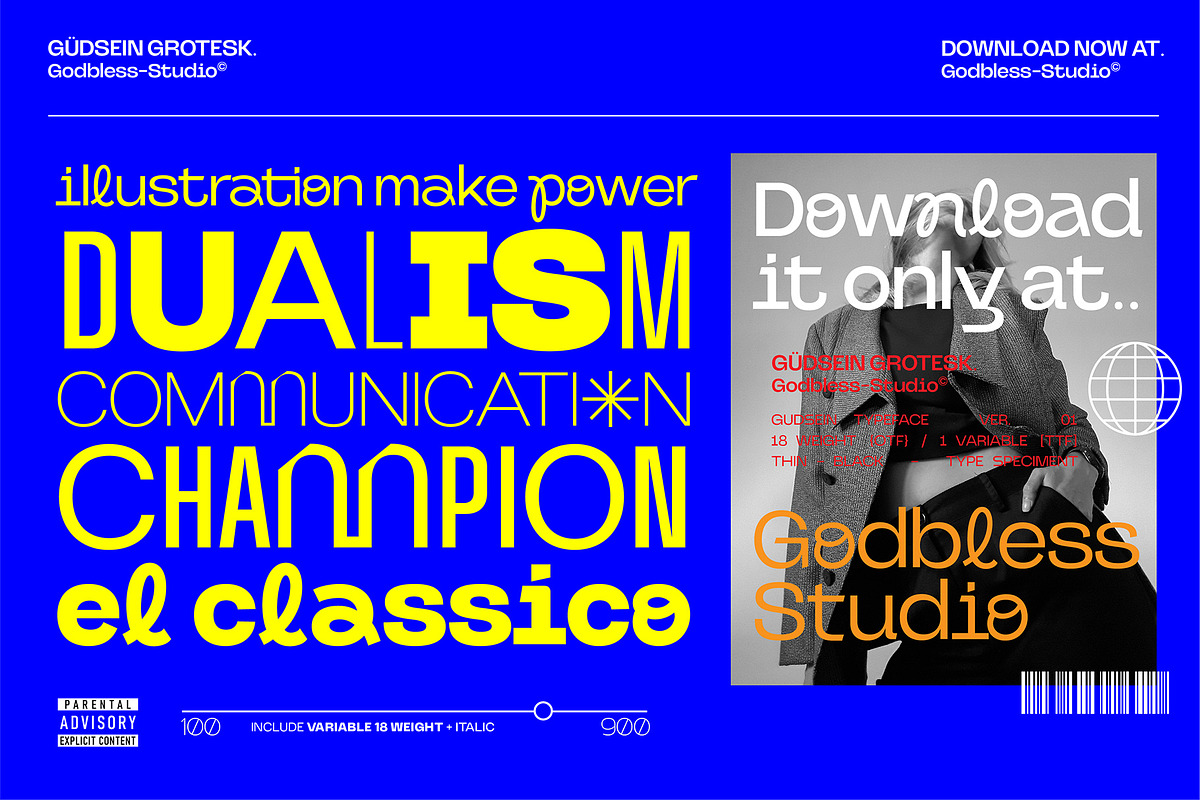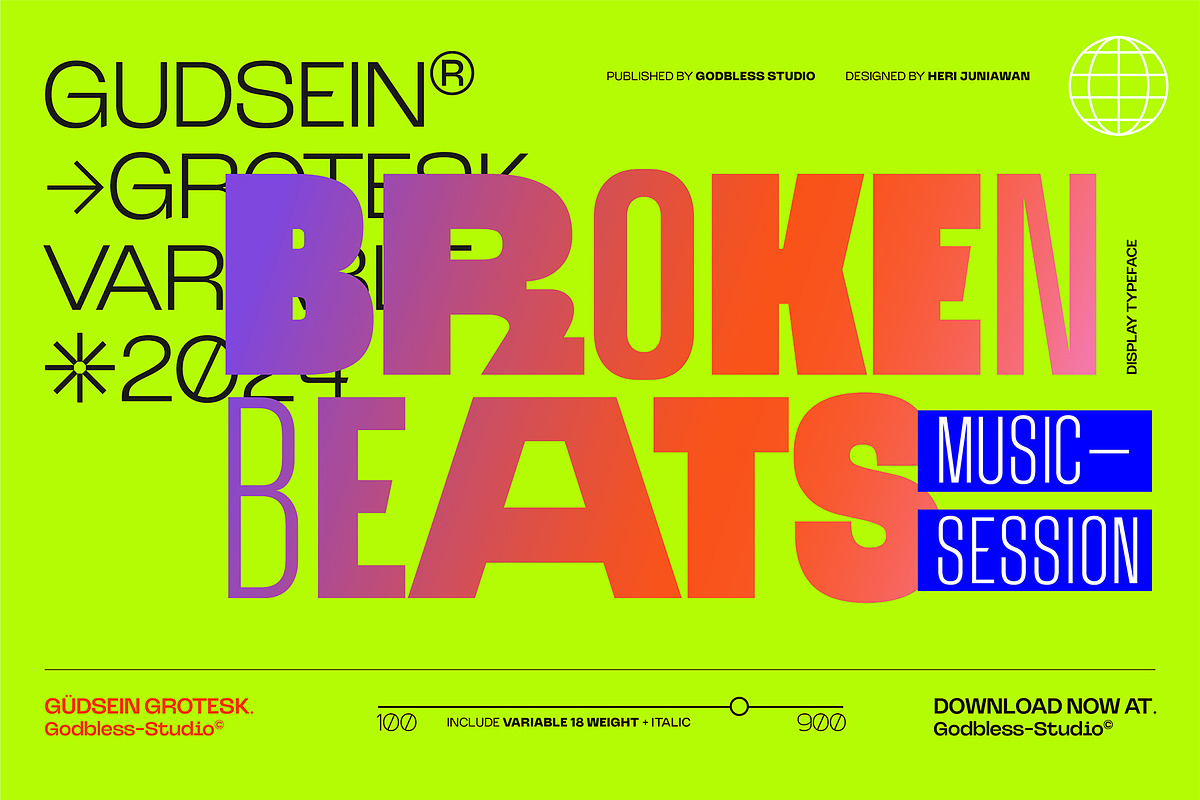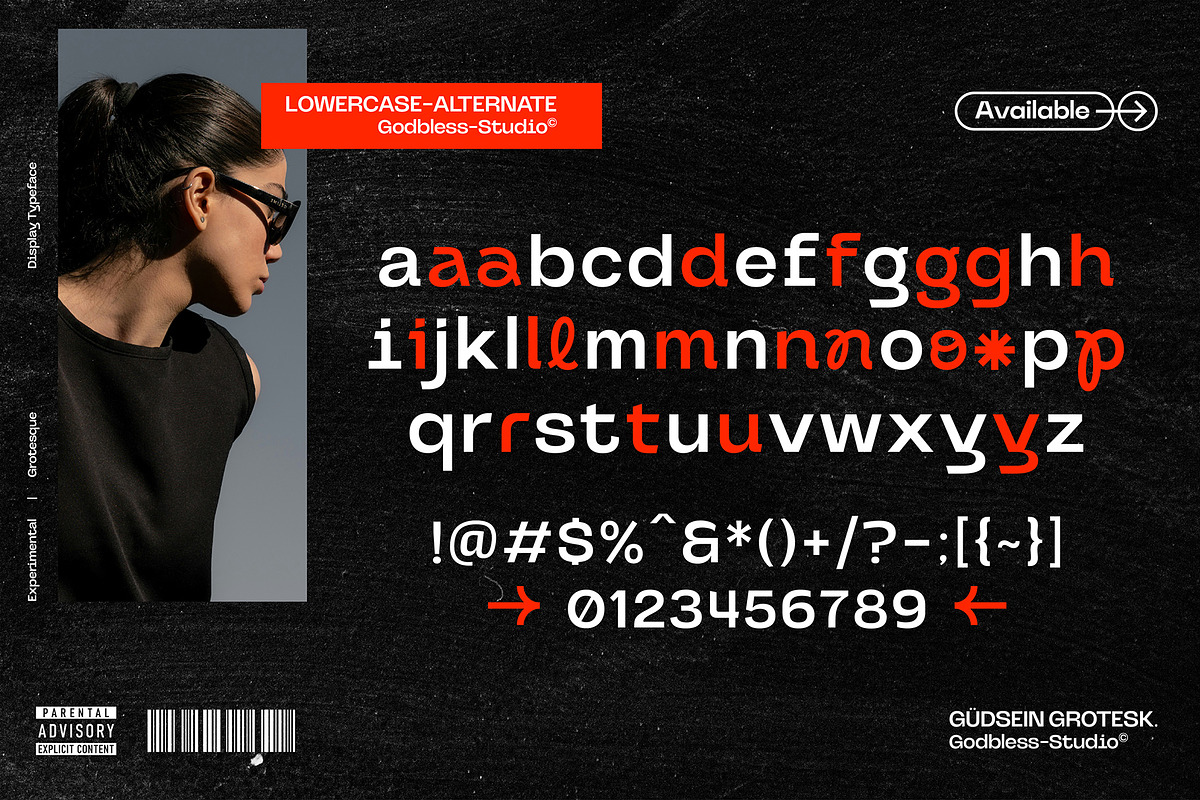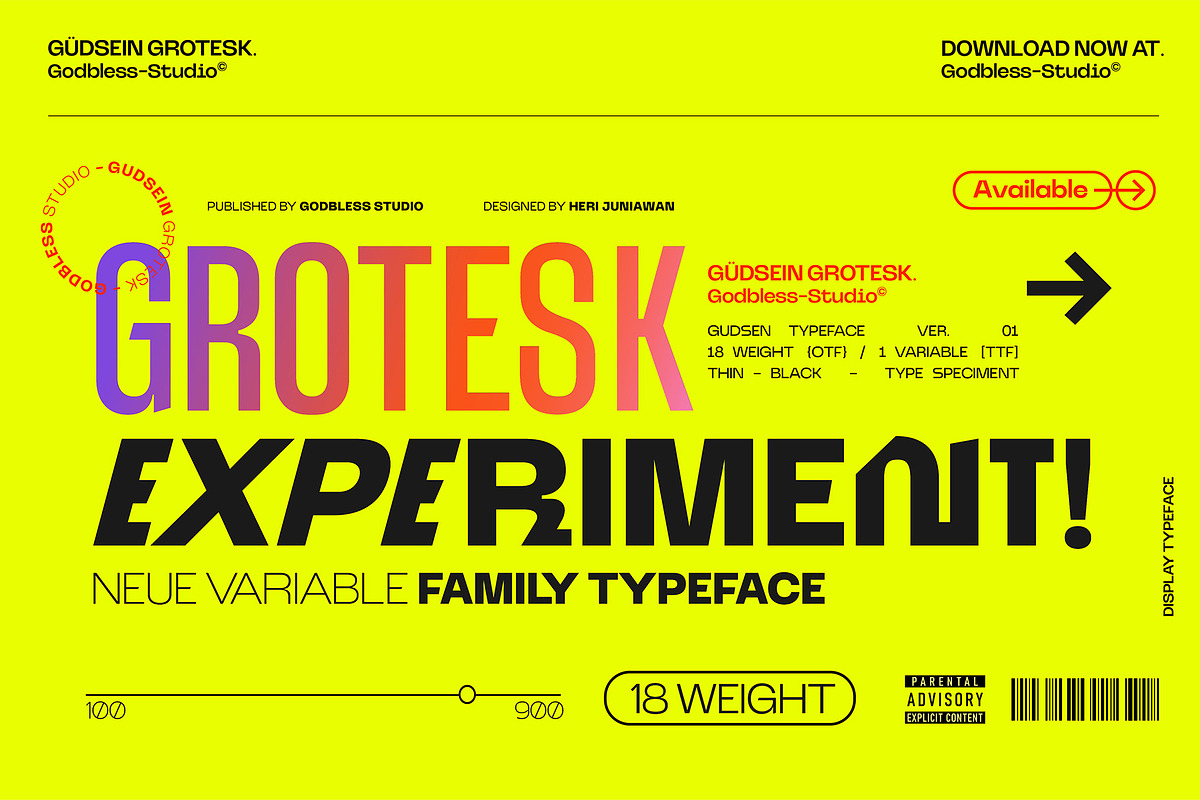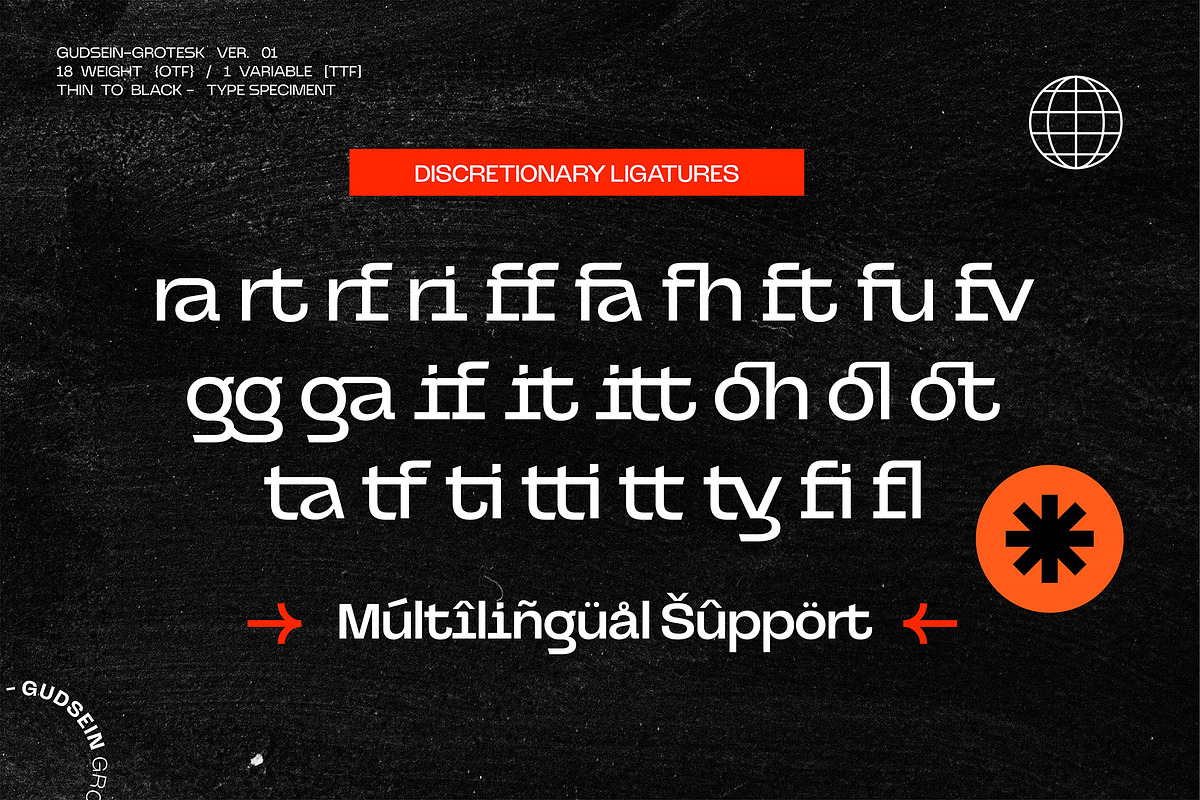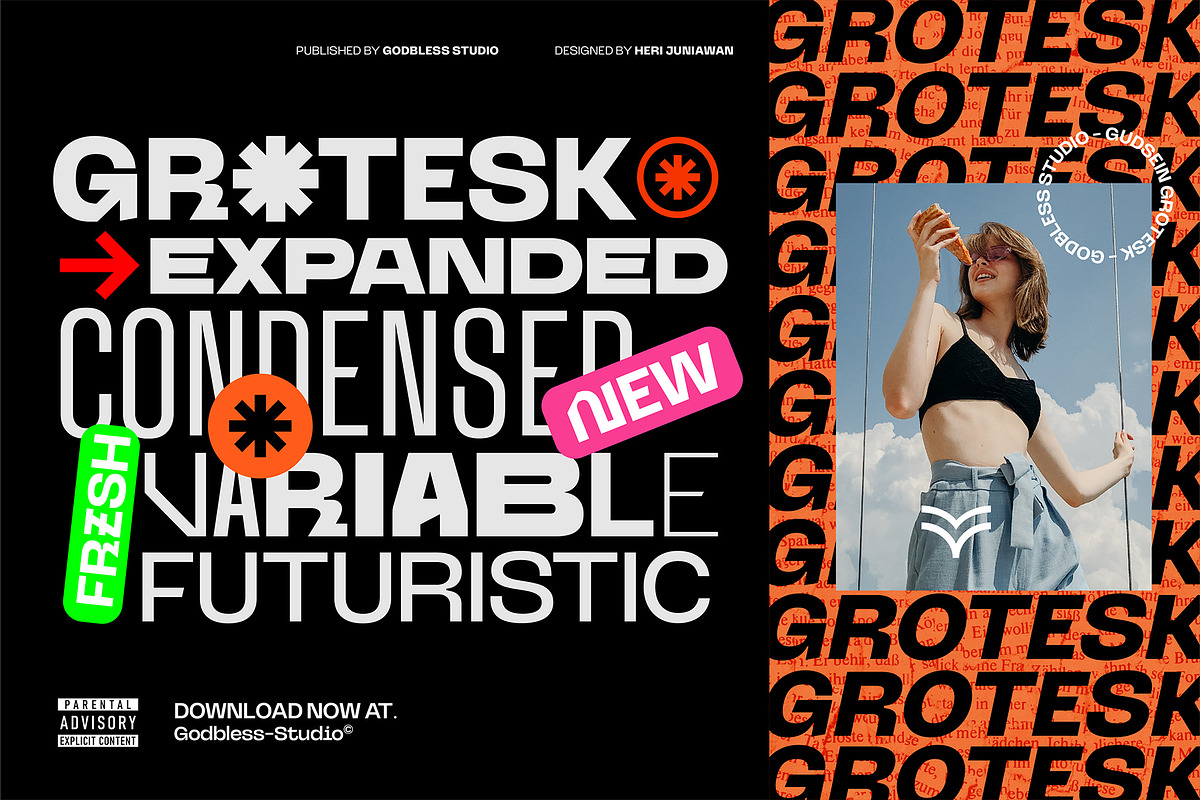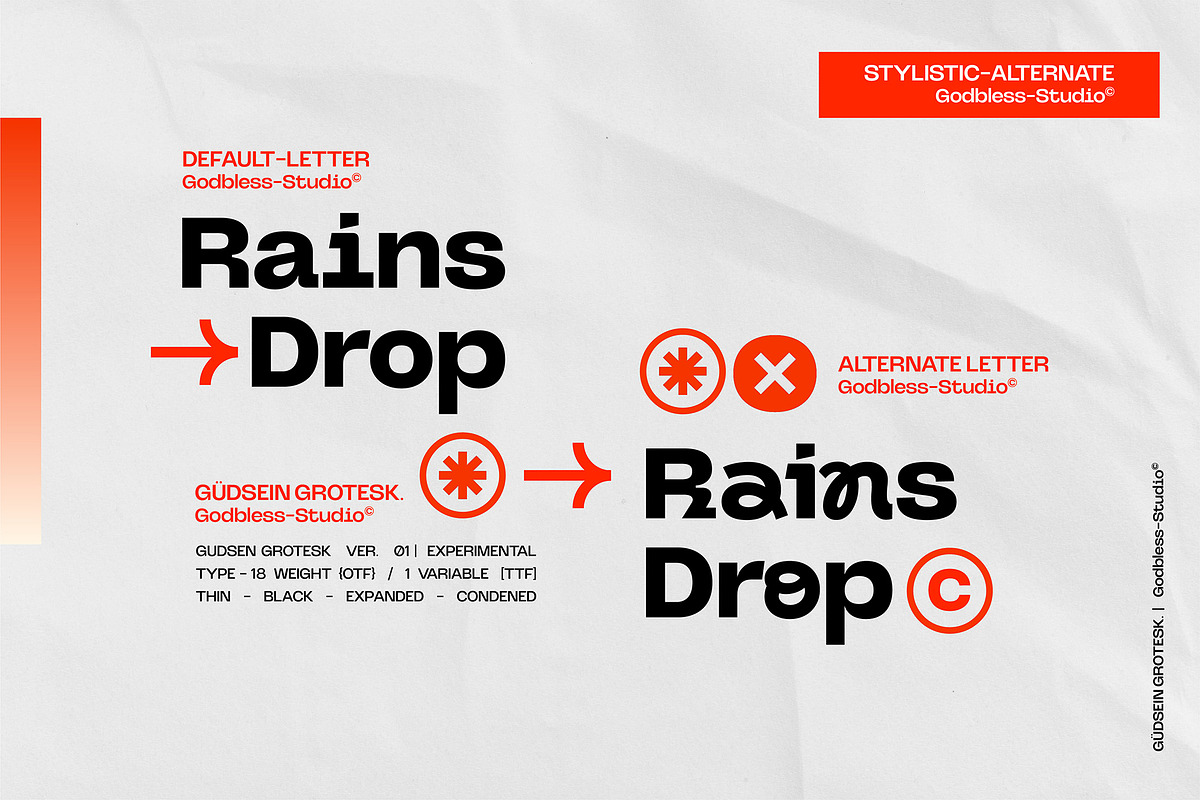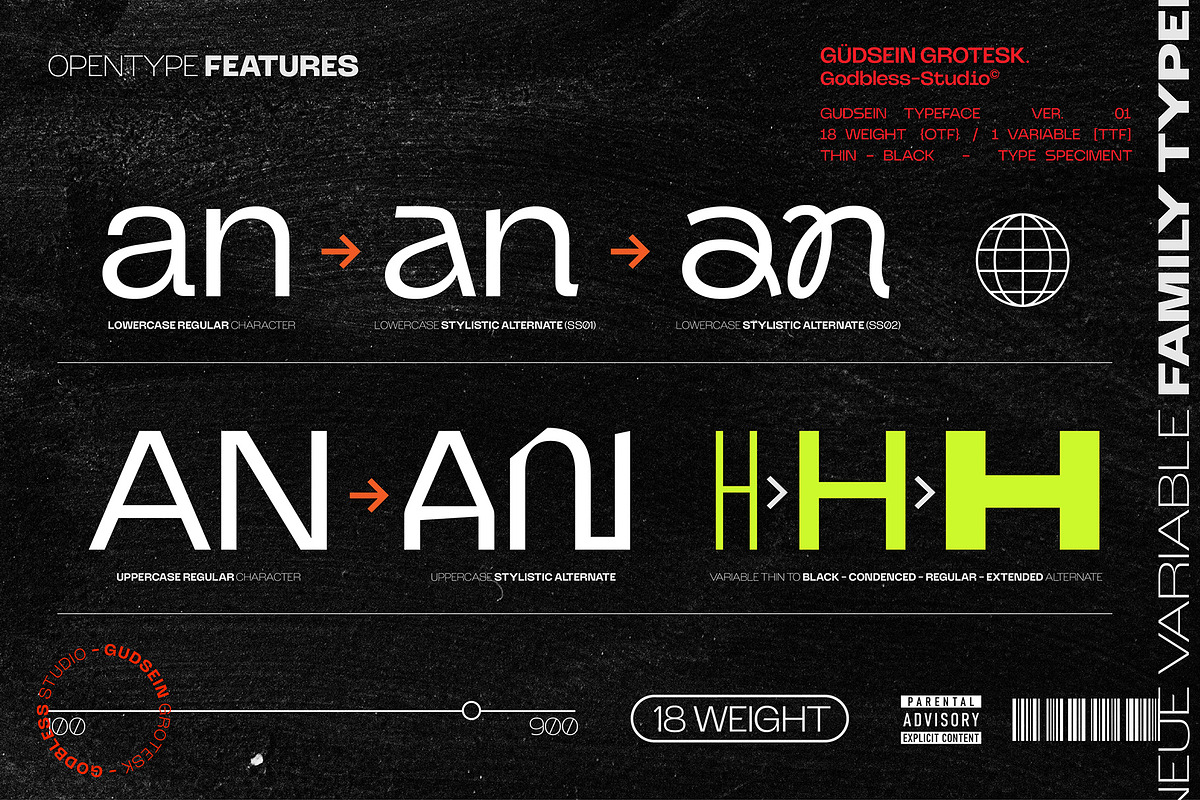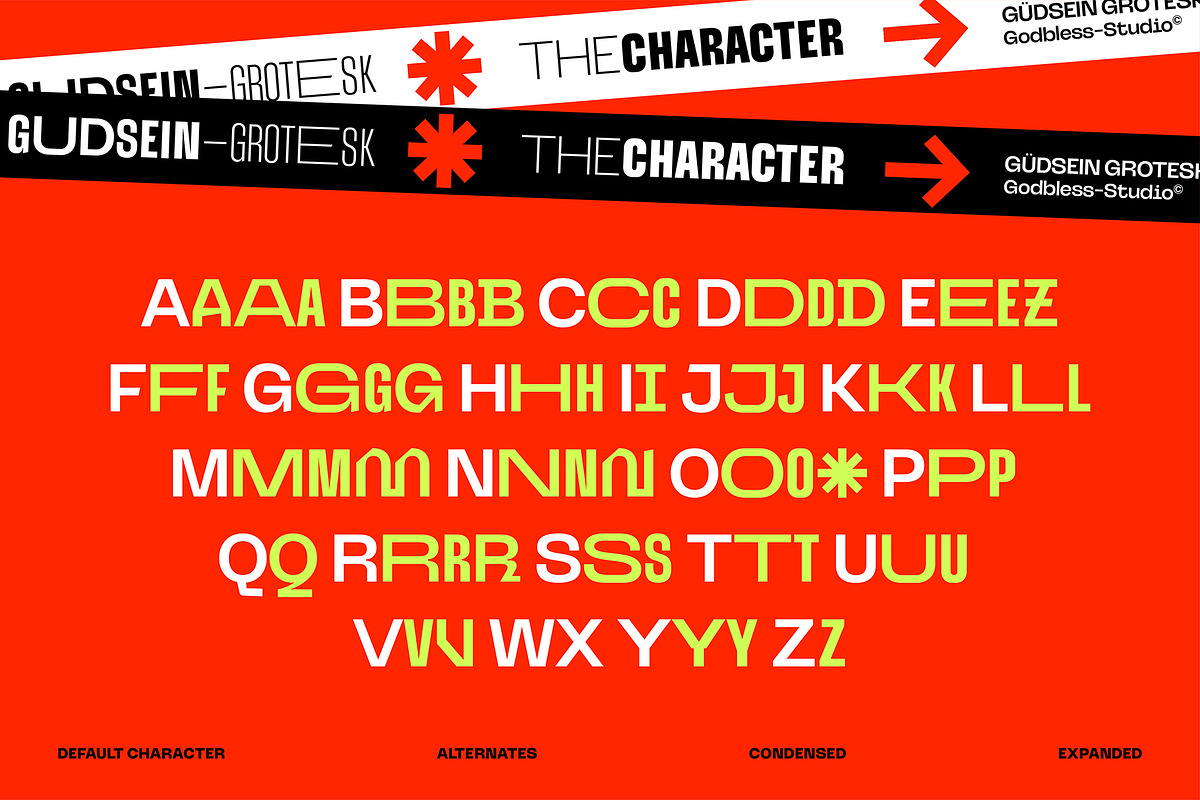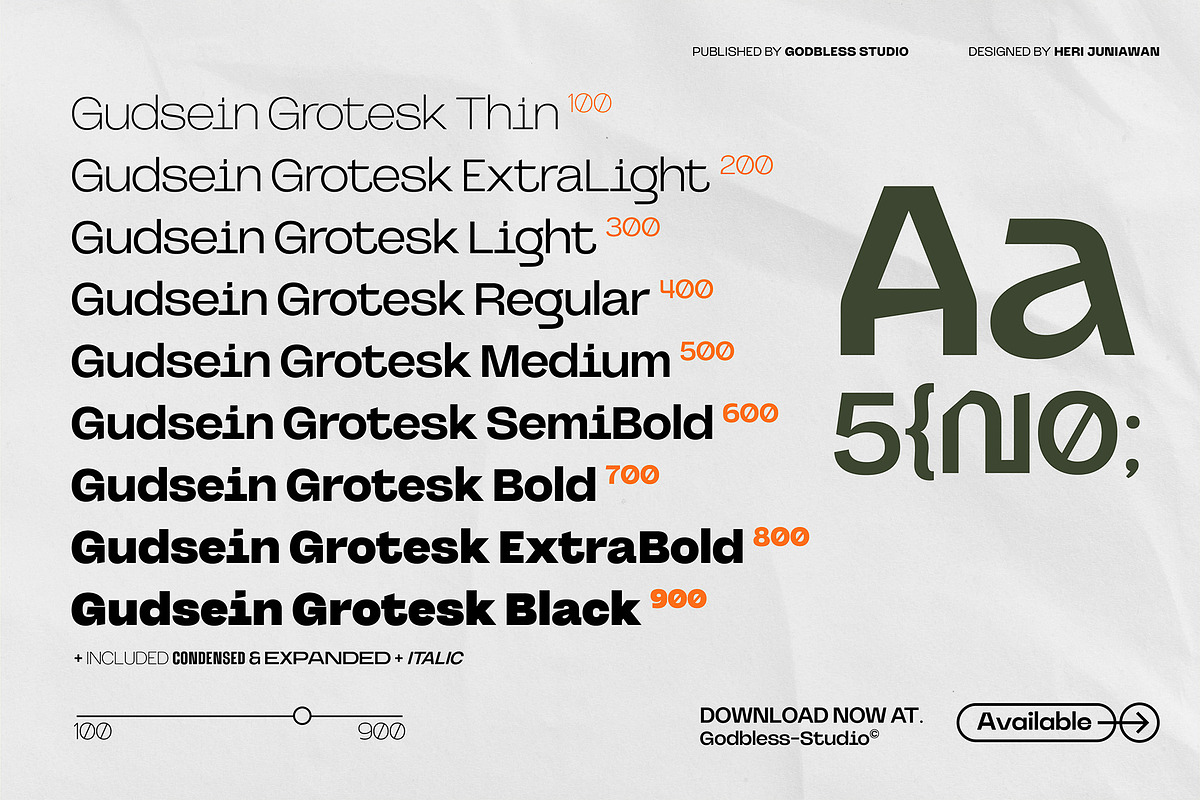
Gudsein Grotesk
Introducing Gudsein Grotesk: The Ultimate Experimental Sans Serif Font
Step into the future of design with Gudsein Grotesk, an experimental sans serif font that blends modernity with sophistication. Gudsein Grotesk is crafted for those who seek a bold and elegant typeface with a unique edge. Its orthogonal terminals, combined with its compact ascenders and descenders, make it perfect for striking displays and impactful text blocks.
Why Choose Gudsein Grotesk?
Gudsein Grotesk offers exceptional versatility with its 18 distinct weights, including italic styles, ranging from slender and condensed to wide and Black. Whether you're designing eye-catching logos, creating memorable titles, or crafting engaging posters, Gudsein Grotesk provides the flexibility you need to achieve your vision.
- Versatile Weights: From Thin to Black, including Italics, to match any design requirement.
- Extensive Language Support: Over 200 languages covered, ensuring global accessibility.
- Modern Alternatives: Unique and contemporary alternate characters for a distinctive look.
- Ideal for Display: Perfect for short texts, isolated words, branding, and more.
Why It’s Perfect for You:
Gudsein Grotesk isn’t just a font—it’s a design solution. Its diverse range of weights and styles allows for endless creativity and ensures that your text stands out with personality and clarity. By choosing Gudsein Grotesk, you're not just selecting a typeface; you're investing in a tool that enhances your creative projects and elevates your brand’s identity.
Add Gudsein Grotesk to your design toolkit today and see how it transforms your projects with its cutting-edge style and versatility.